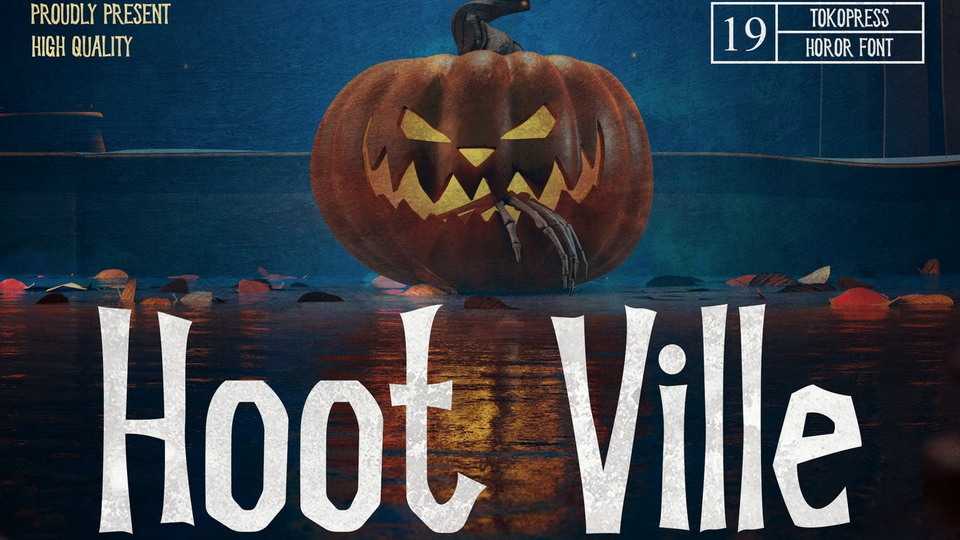
Download Hoot Ville font, a scary Halloween typeface. The owls are hooting, the chilling wind breezing through the skin, and walking dead are haunting the city.